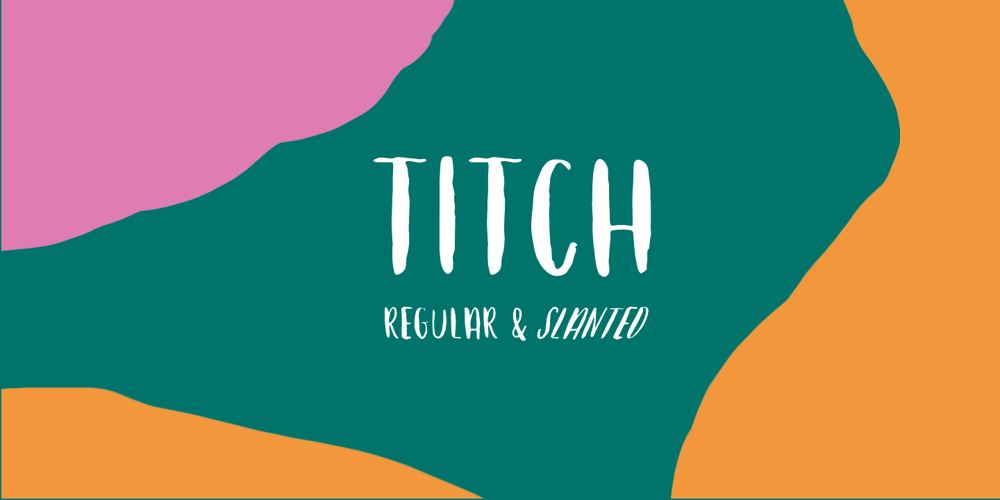
Titch
Titch font
Titch Font Family was designed by Adam Greasley and published by wearecolt. Titch contains 3 styles and family package options. Titch is a brush font, original glyphs drawn with a tombow brush pen. Special care has been taken to retain the individual characteristics of each glyph making Titch a beautifully unique display font. Titch is a small caps font available in both regular and slanted variations. This fun and versatile display font will add a hand made touch to your next packaging design or greetings card.